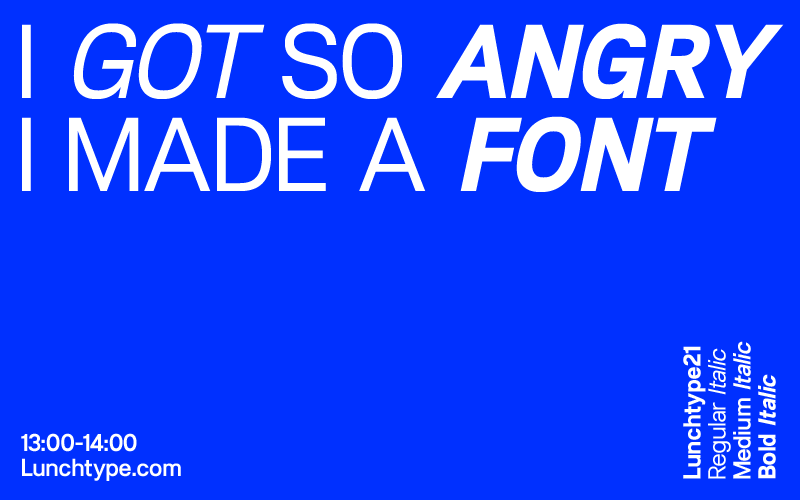
Typeface(regular) was created during lunch hour (13:00-14:00) for #The100DayProject and can be found viewed over at Lunchtype.com or though #lunchtype @instagram. Designer Steppot. (steppot.com) |